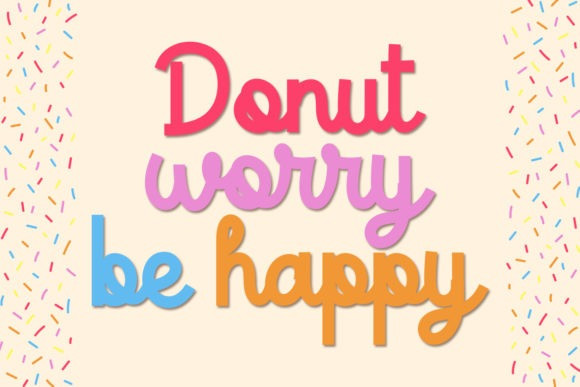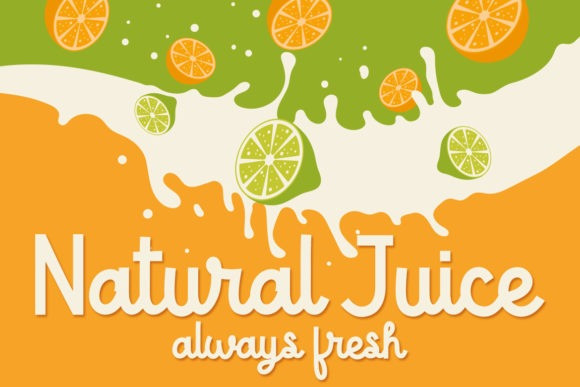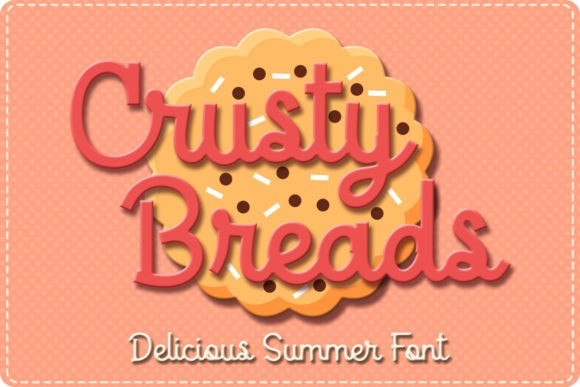
Crusty Breads Font
Crusty Breads Font is a sweet, soft hand-lettered display font. Whether you’re looking for fonts for Instagram or calligraphy scripts for DIY projects, Crusty Breads will turn any creative idea into a true piece of art!